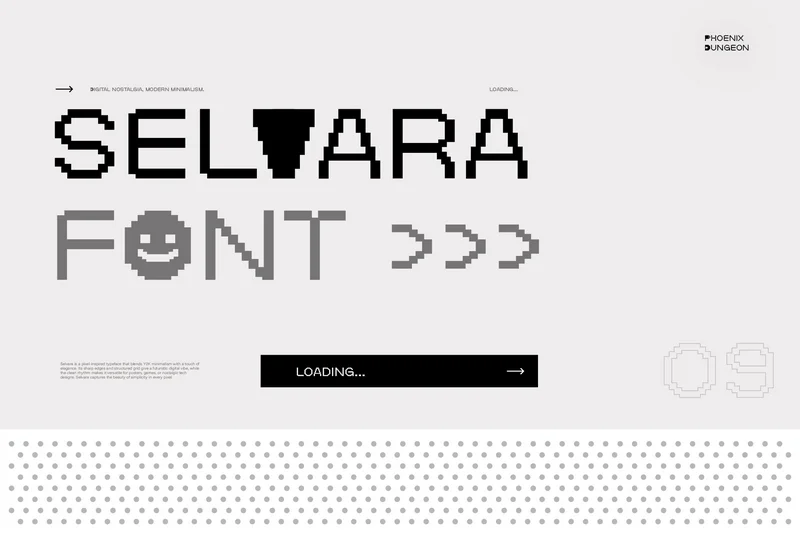
Selvara Font
Selvara is a pixel-inspired typeface that blends Y2K minimalism with a touch of elegance. Its sharp edges and structured grid give a futuristic digital vibe, while the clean rhythm makes it versatile for posters, games, or nostalgic tech designs. Selvara captures the beauty of simplicity in every pixel.